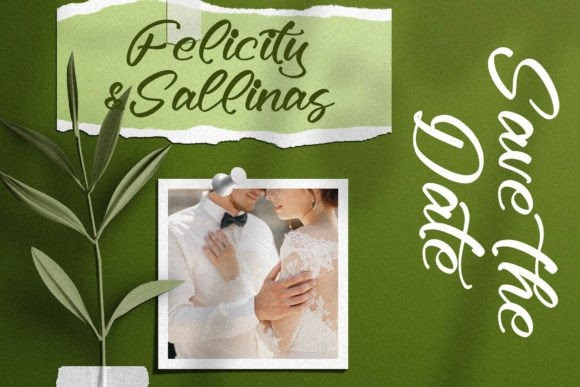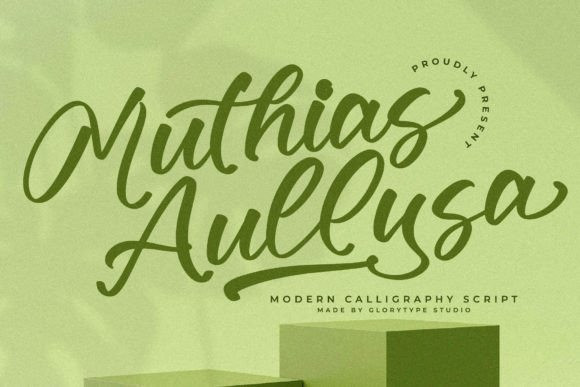
Muthias Aullysa Font
Muthias Aullysa – Modern Calligraphy Script Font , from Glorytype Studio, suitable for any projects such as: logos, branding projects, homeware designs, product packaging, mugs, quotes, posters, shopping bags, t-shirts, book covers, name card, invitation cards, greeting cards, label, photography, watermark, special events, and all your other lovely projects that need a beautiful script taste.